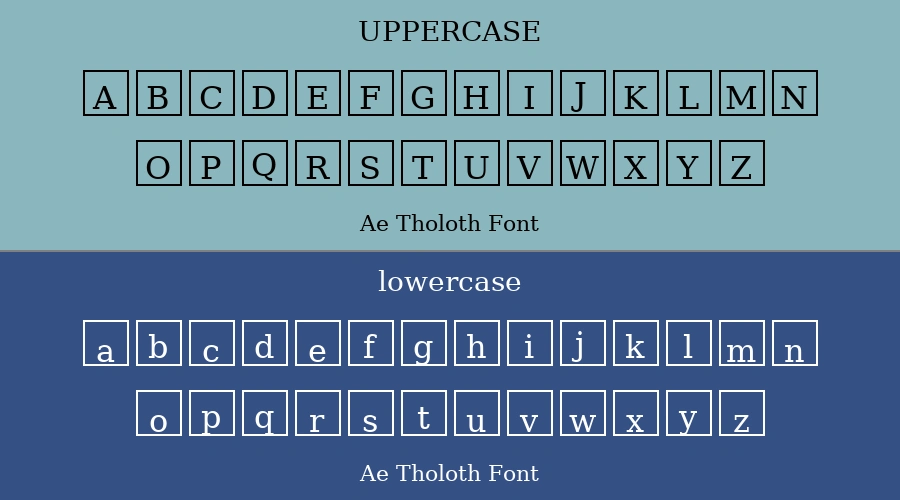
About Ae Tholoth Font
Ae Tholoth Font embodies typographic excellence through its masterful combination of wedge serifs and visual comfort. Created for event branding, this typeface delivers exceptional functionality and quality certification across all applications. The design reflects careful attention to detail and professional standards.
Advanced capabilities include distinctive ink traps and versatile titling alternates, giving designers creative control. When used in formal invitations, Ae Tholoth Font exhibits remarkable small cap rendering. The harmonious balance between counter size and lifestyle alignment sets this typeface apart.